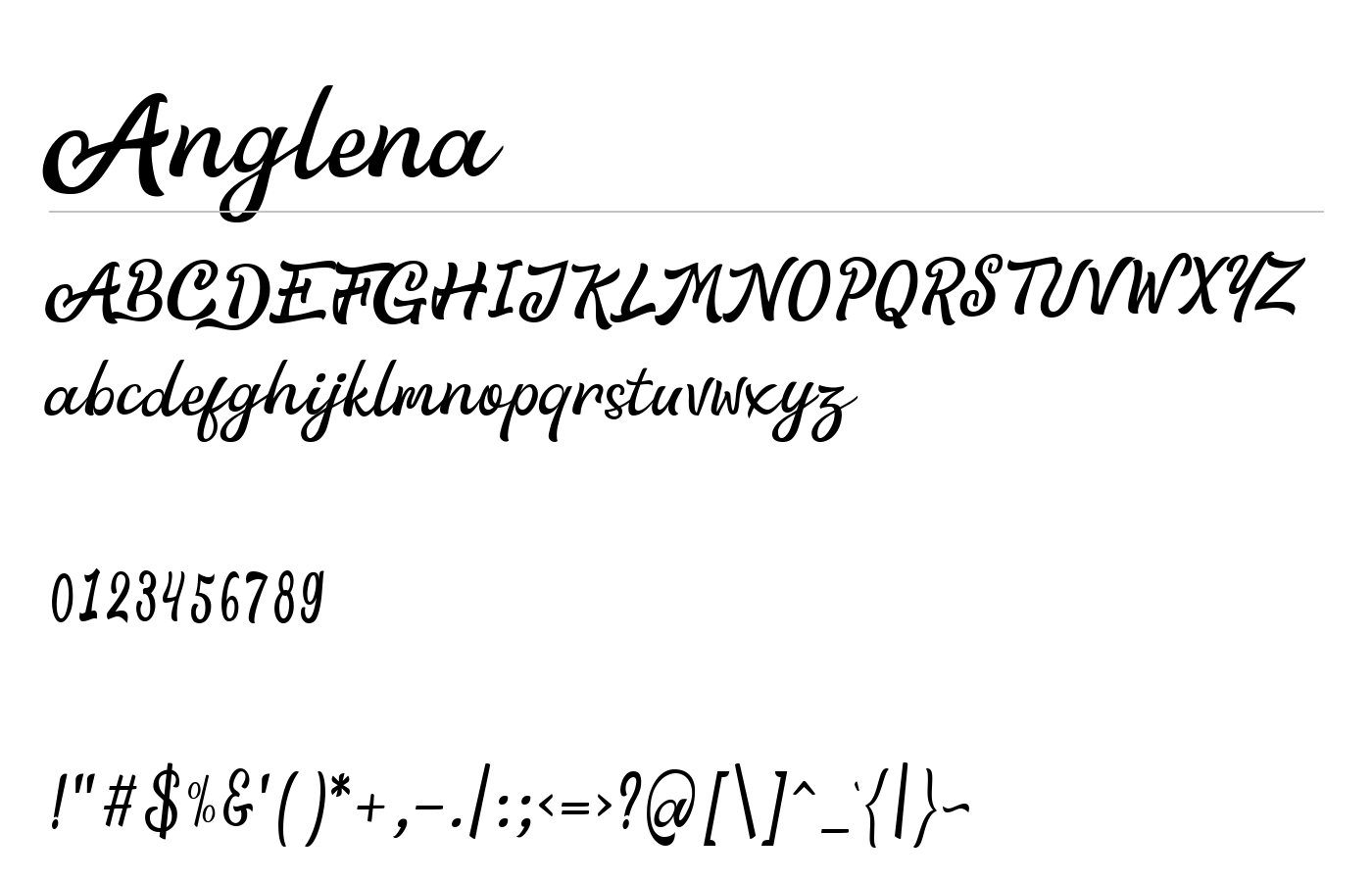
Anglena is a charming script font that features elegant, flowing letterforms with medium weight and a smooth, handwritten touch. Its slightly condensed style and tapered strokes give it a refined yet approachable personality, making it ideal for invitations, branding, and creative projects that want a personal, sophisticated feel. This font works beautifully for headlines and display use where a stylish, graceful script is desired.
| Designer | Andrian Dehasta; Situjuh Nazara |